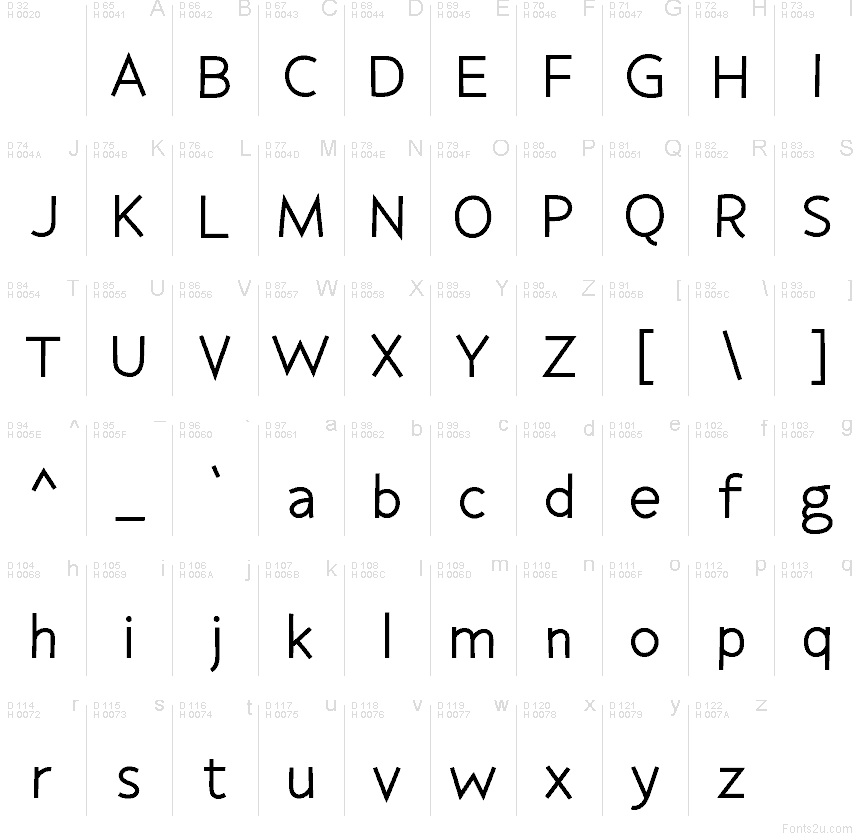
Beaming font by HannaBie Creative Studio is a free display typeface with a bright, expressive twist. Its wide, rounded forms feel ink-brushed rather than mechanically drawn, giving each word a soft, organic glow. The tall, airy letters and playful curves create a lively rhythm that catches the eye without feeling shouty, making short phrases and names look instantly branded.
Using Beaming, bold titles feel friendly and modern at the same time, so it shines on posters, product packaging, brand wordmarks, social graphics, event invitations, and editorial covers. This free font really comes alive at larger sizes, where its subtle wobble and generous curves can be appreciated. For a clean, balanced layout, pair Beaming with a simple geometric sans or neutral grotesk in smaller supporting text.